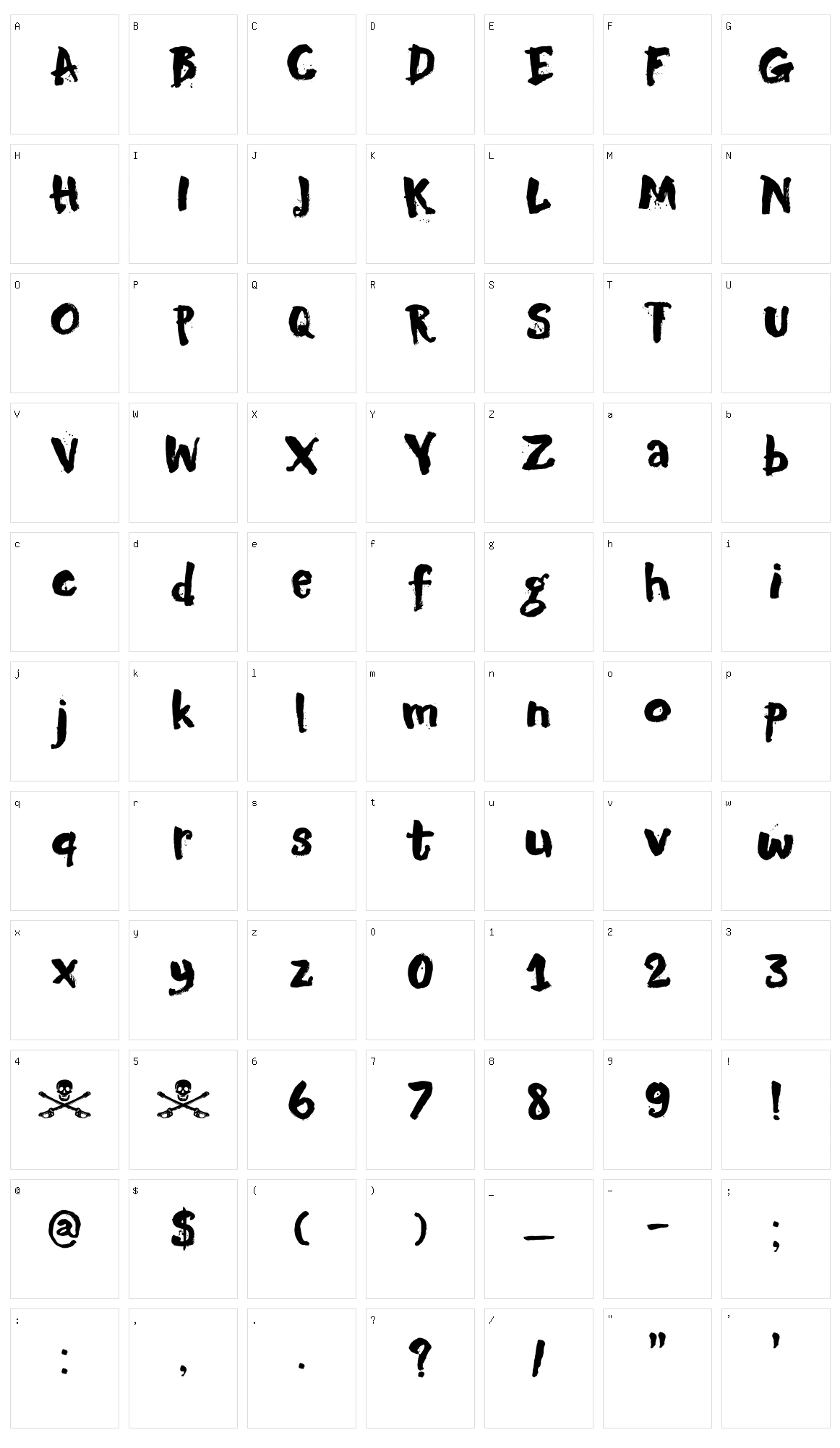
The free font DK Motley Crew is carefully designed by Hanoded, showcasing a thoughtful balance of creativity and usability and falls under the Horror font style. When you download the ZIP file, it contains only 2040.94 KB of font files, making it lightweight and quick to download. Please review the license details below to understand permitted usage and distribution rights. If license information is not available, we recommend using this font for personal projects only or contacting the author directly for commercial usage permissions.